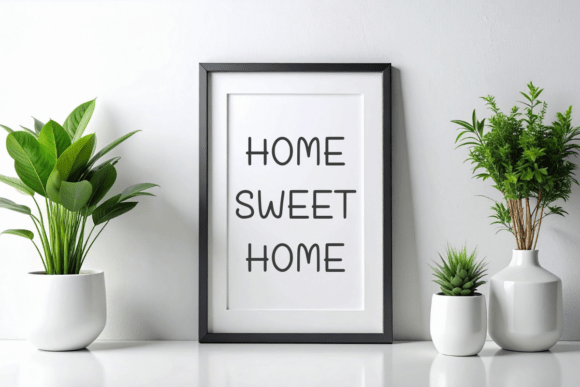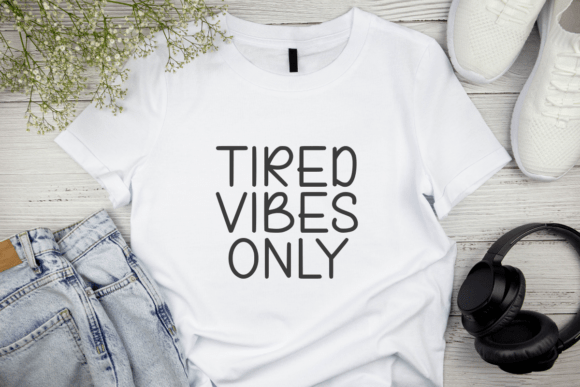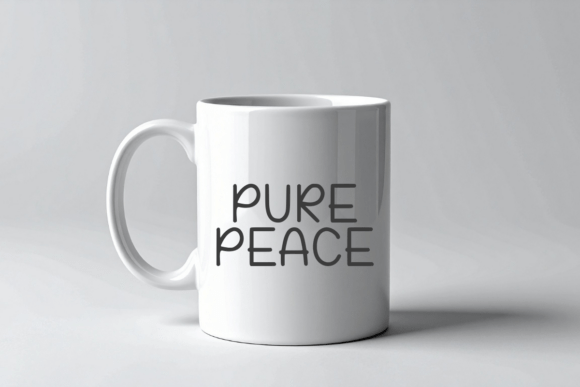
Introduction to Cheery Song Font
Cheery Song is an absolutely charming handwriting font, perfectly designed to broadcast joy and simplicity with its delightful, clean, and effortlessly cute aesthetic.
Similar to other high-quality cute typefaces, the Cheery Song font features a friendly, monoline construction and rounded edges, giving it the appearance of being written with a favorite felt-tip pen Its clear, all-caps design and slightly bouncy baseline create an instantly uplifting and youthful feel, making it incredibly appealing for lighthearted and fun projects.
Key Features of Cheery Song Font
Why Choose Cheery Song Font?
Cheery Song Font offers exceptional quality and versatility, making it a valuable addition to your design toolkit. Whether you’re creating for personal projects or commercial use, Cheery Song Font delivers professional results.